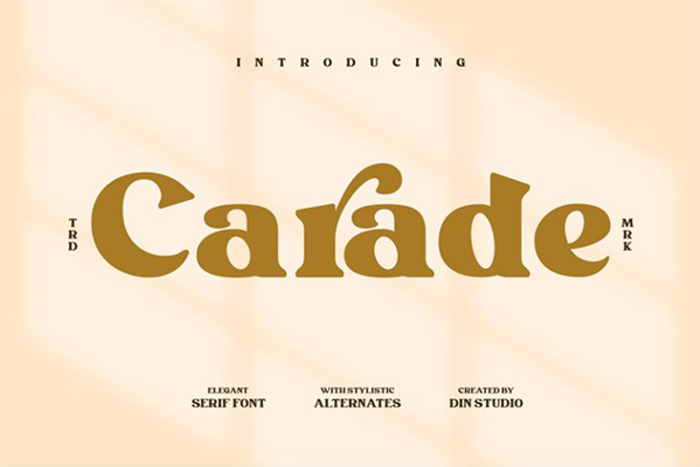
Carade Font
Carade. It is an elegant serif font made for any professional project brandings. It is best used for logos, cards, packaging, advertisements, brandings and quotes. Every letter has a unique and beautiful touch.
Features include:
• Alternates
• Stylistic Sets
• Swashes
• Multilingual Supports
• Numerals and Punctuations